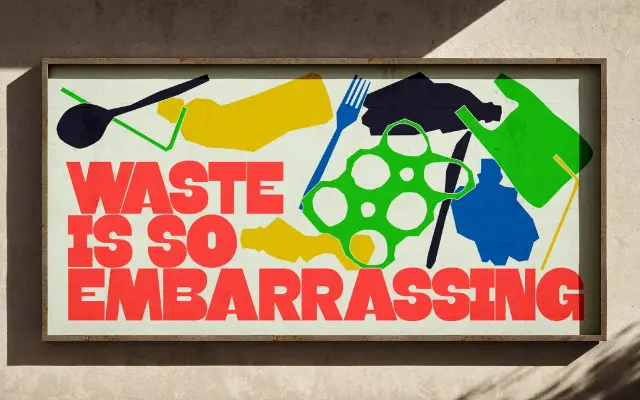
Favora
In-House Intl · Alexander Wright, Michu Benaim Steiner
A two-weight display typeface drawing on commercial signage and protest lettering, designed at In-House Intl for hopeful brand identities and climate campaigns.
The heavier weight references large-scale imprint posters and public announcement signage, while the lighter weight pulls from architectural engravings and formal advertising. Both cuts are drawn with deliberate warmth, described by the studio as slightly dusty and bright-eyed, lending characters a handmade quality suited to posters, packaging and digital billboards. Developed by Rodrigo Fuenzalida at FragType, the family has been featured in Slanted, PRINT Magazine and Behance Picks.
Explicitly designed as a display typeface, offered in two weights that reference commercial signage, protest posters and architectural lettering rather than text setting.